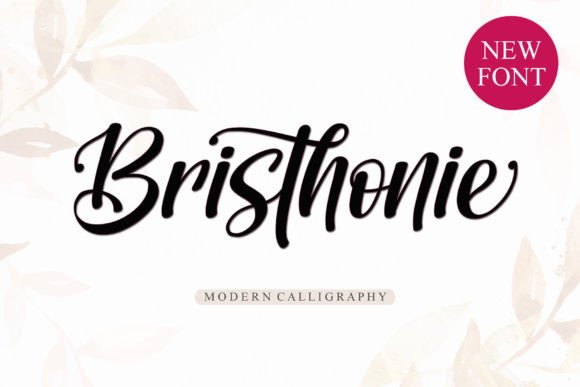
Bristhonie Font: Elevate Your Designs with Elegance and Romance
Are you a designer or crafter looking for a font that exudes romance and sophistication? Look no further than Bristhonie, a stunning calligraphy typeface that is sure to elevate your designs to the next level. With its flowing, dancing characters and elegant swashes, Bristhonie is the perfect choice for a wide range of projects, from logos and wedding invitations to headings, t-shirts, and more.
The Beauty of Bristhonie
Bristhonie is a true masterpiece of calligraphic design. Each character is carefully crafted to dance along the baseline, creating a sense of movement and fluidity that is both captivating and beautiful. The font’s romantic and graceful aesthetic makes it perfect for designs that require a touch of elegance and sophistication.
One of the best things about Bristhonie is its versatility. This font can be used for a wide range of purposes, including:
- Logos: Create a lasting impression with a custom logo that features the elegant curves of Bristhonie.
- Wedding Invitations: Make your wedding invitations truly special with the romantic charm of Bristhonie.
- Headings: Add a touch of sophistication to your headings and titles with the flowing lines of Bristhonie.
- T-shirts: Create unique and eye-catching designs for t-shirts, tote bags, and other apparel.
- Letterhead: Elevate your business correspondence with the elegant style of Bristhonie.
- Signage: Make your signs and displays stand out with the beautiful curves of Bristhonie.
- Labels: Add a touch of elegance to your labels and packaging with Bristhonie.
- News: Create eye-catching headlines and titles for your news articles and publications.
- Posters: Make your posters and flyers truly special with the romantic charm of Bristhonie.
- Badges: Create custom badges and insignia that feature the elegant curves of Bristhonie.
Why Choose Bristhonie?
With so many fonts to choose from, why should you choose Bristhonie? Here are just a few reasons:
- Unique and elegant design that will set your work apart.
- Versatile and can be used for a wide range of projects.
- Perfect for designers and crafters who want to add a touch of romance and sophistication to their work.